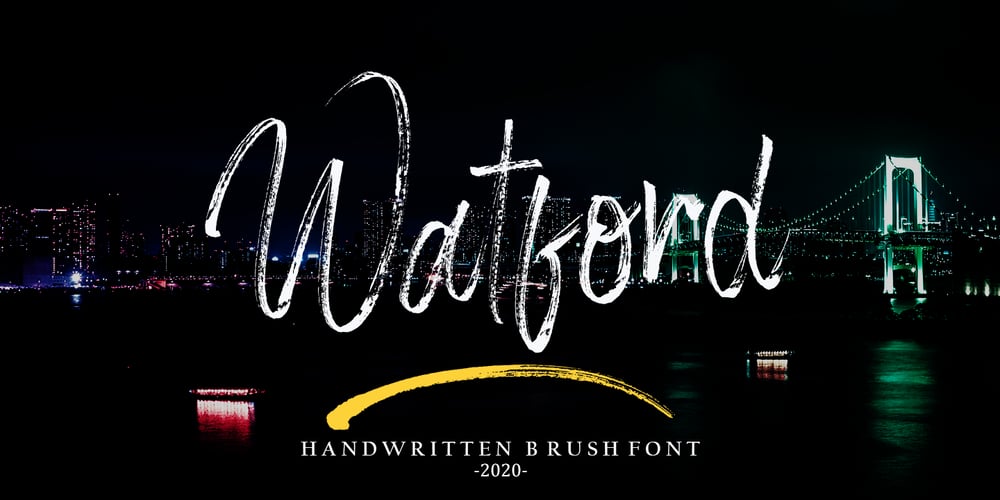
Watford Font Family was designed by Zaki Muhammad and published by madjack.font. Watford contains 2 styles and family package options. Watford is a textured brush font, a contemporary approach to design, handmade with irregular base lines. Suitable for use in title designs such as clothing, invitations, booklets, stationery designs, quotes, branding, logos, greeting cards, t-shirts, packaging designs, posters and more.Watford includes a complete set of upper and lower case letters, as well as multi-language support, numbers, punctuation, binders, alternatives and additional swash.If you have questions, feel free to contact me via email: madjack.font@gmail, comThank you very much for finding and enjoying it!Muhammad Zaki